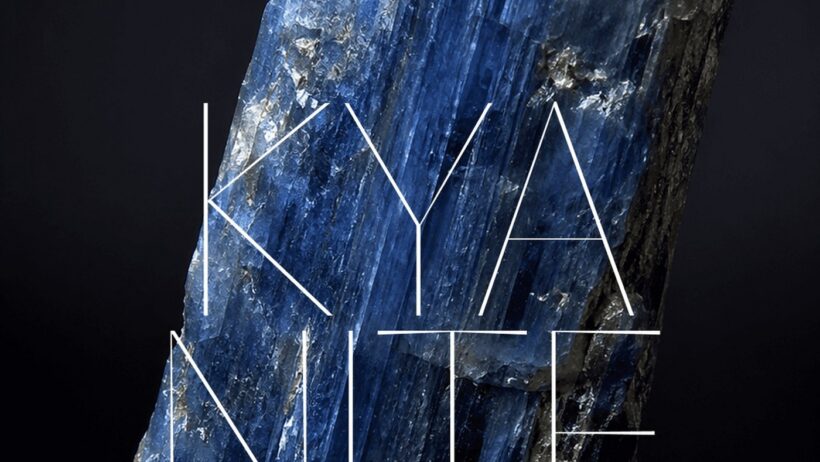
Fluxetype, a Variable Typographic Voice
As a branding curator, I champion Fluxetype for its rare balance between humanist warmth and roman structure. Nikita Kanarev engineered a variable system that spans micro captions to monumental exhibition titles. Its three variable axes and x height modes let designers fine tune optical presence across screens and print. Eighty four static presets and a continuous variable font ensure linguistic reach and compositional cohesion. Specimen posters pair hairline display weights with mineral textures, proving the typeface thrives in complex layouts. It solves the chronic font pairing problem, offering a single voice across products and editorial systems.
Fluxetype’s Grande mode expands lowercase optical volume while preserving comfortable line spacing, ideal for dense UI navigation. Designers can dial contrast from zero to high, creating subtle text weights or punchy display cuts on demand. Three x height presets offer Petite, Normal, and Grande, a pragmatic tool for cross touchpoint consistency. The multilingual coverage across Latin and Cyrillic, and extensive OpenType features make it production ready. If you care about brand clarity, sensory richness, and technical reliability, Fluxetype deserves immediate study. Read the full post to see the specimen posters, the interface logic, and nuanced typographic details. Explore now.